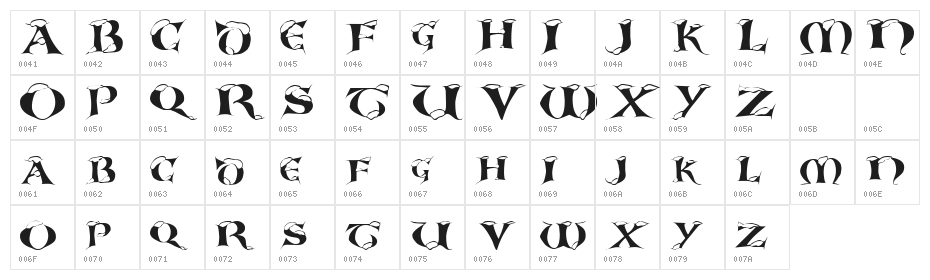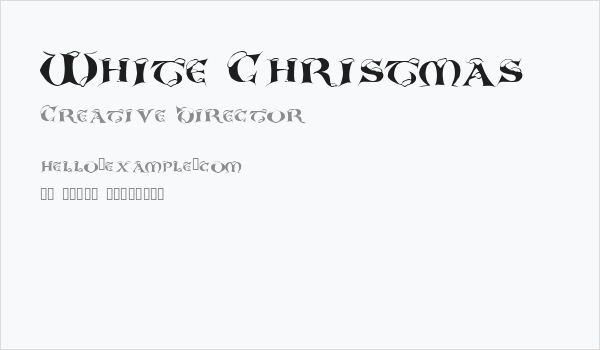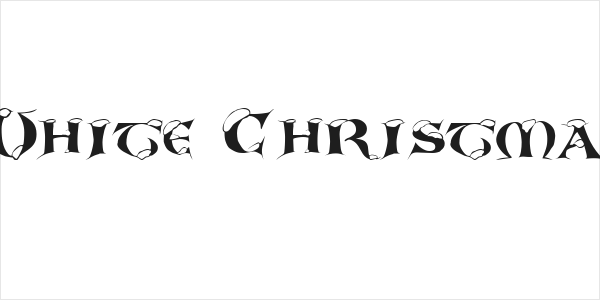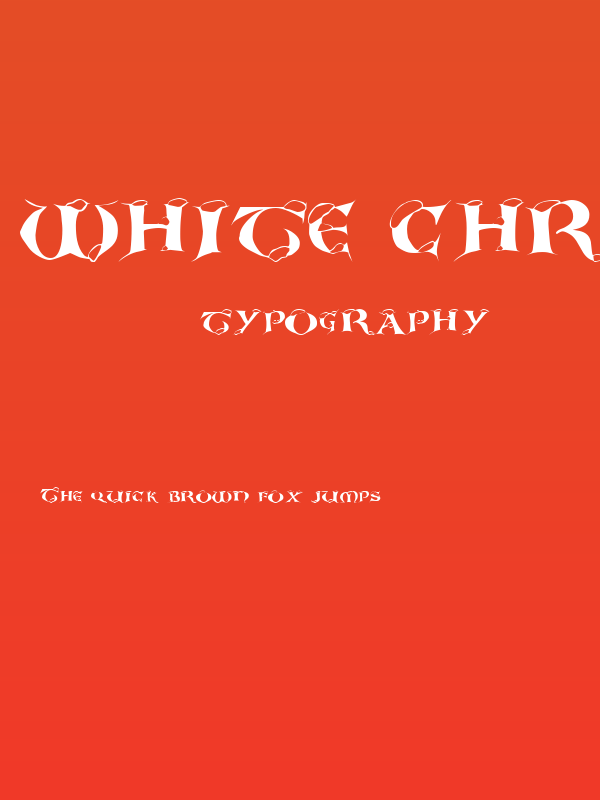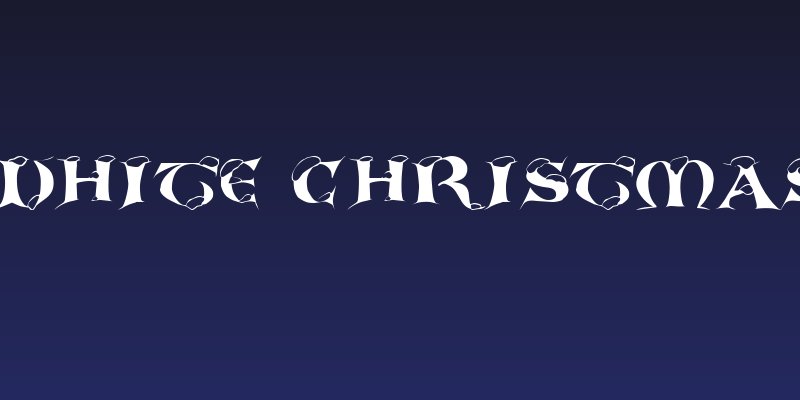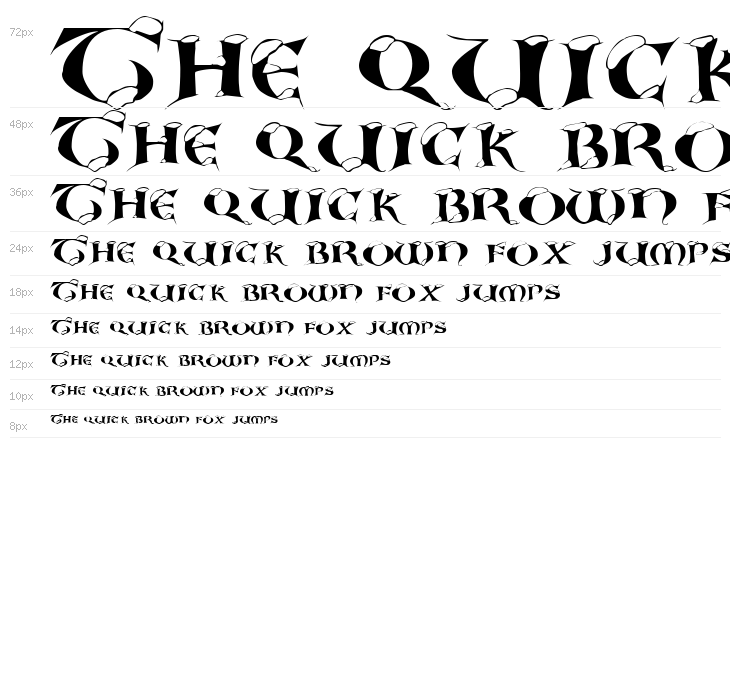
White Christmas Font
White Christmas Description
This font features an intricate and decorative style, reminiscent of traditional calligraphy with a modern twist. The uppercase letters are adorned with elegant flourishes and sharp, angular strokes that give it a distinct Gothic appearance. The lowercase letters maintain a similar style, ensuring consistency throughout the typeface. The overall design is bold and eye-catching, making it suitable for projects that require a touch of elegance and sophistication. The characters are well-spaced, allowing for readability despite the ornate details. This font is perfect for creating striking headlines, logos, or invitations that demand attention.
| Proposed Projects | Ideal for wedding invitations, holiday cards, branding, and decorative headlines. |